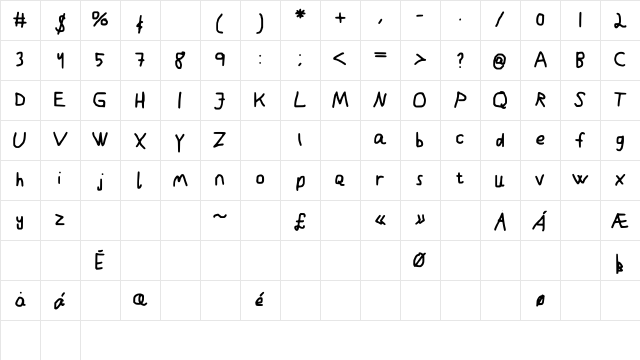
Kindergarden Medium Free Font
Kindergarden Medium
Design Context for Kindergarden
Kindergarden is a composed and adaptable typeface that performs quietly and consistently across a wide range of design contexts.
Pro Tip: Use Kindergarden in both headline and body roles to test its range before committing to a single application.